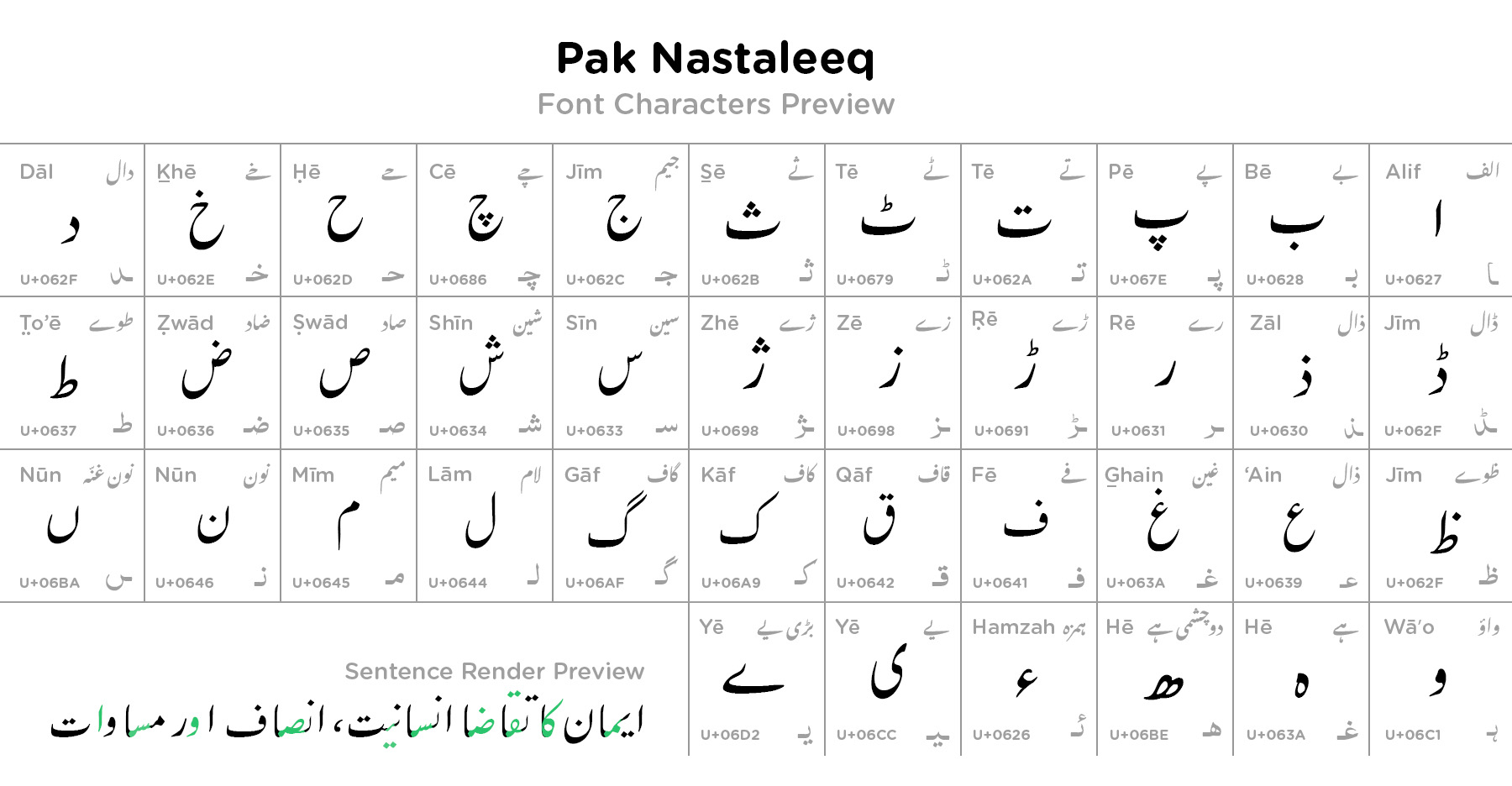
Pak Nastaleeq, developed by Mohsin Shafeeque Hijazee and trademarked by the Center of Excellence for Urdu Informatics, is a distinguished font released on August 29, 2016. It features 359 characters and 601 glyphs and supports Arabic, Latin, Cyrillic, and Symbols, catering to diverse language requirements. With a moderate and constant thickness, it features strong and changing strokes, suitable for both short and long text blocks. Its diagonal slant, reminiscent of traditional Nastaliq, incorporates individual block characters for improved readability. Subtle variations in letter shapes and thinner strokes contribute to its refined appearance.